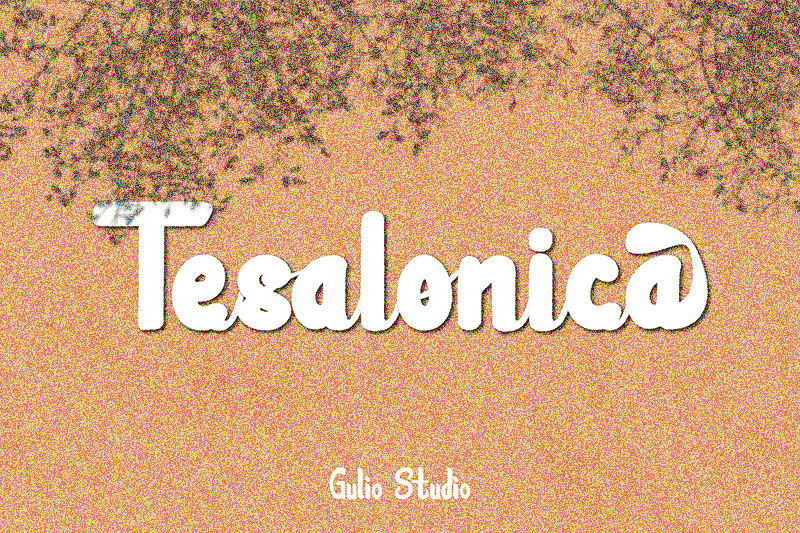
Free download Tesalonica Script Font
Link Donation: https://paypal.me/wahysapt?locale.x=en_US Hi, introduce our newest font Tesalonica Font with a unique script style, which is a thick main line and a connecting line that is made thin to create an elegant impression. This font is very suitable for logos, book covers, children's stories, posters, brochures, magazines, web banners, illustrators, and other design projects.Include: -TTF & OTF Font Files -Lowercase & Upercase -Alternative character -Numbers & Punctions -Multilingual Support I am very happy if you want to contact me about an idea to improve the font that I made.Thank you, I hope you are happy with our font |